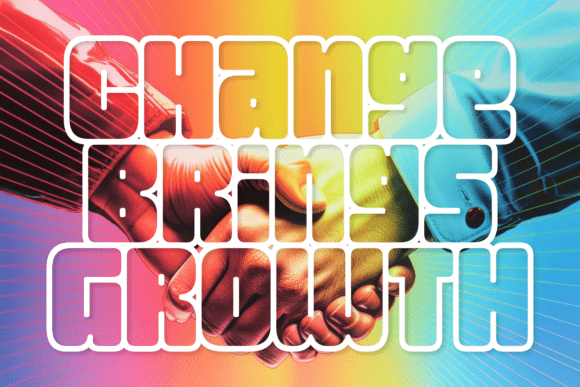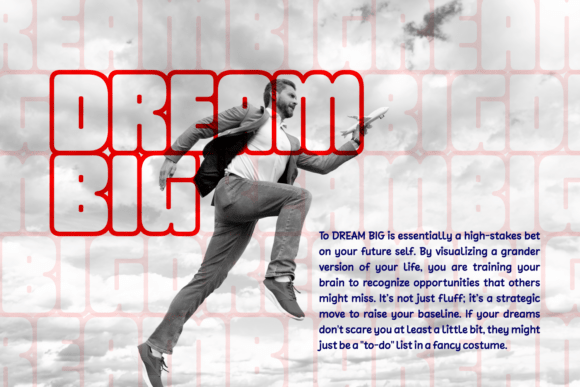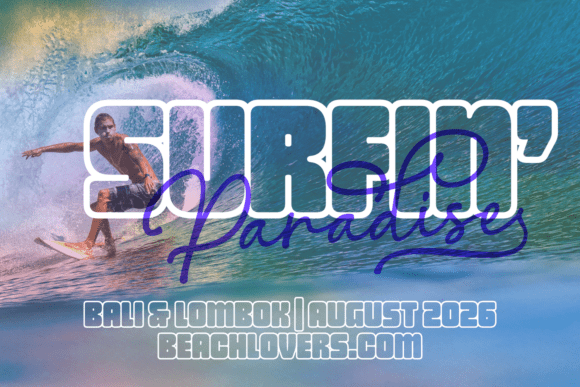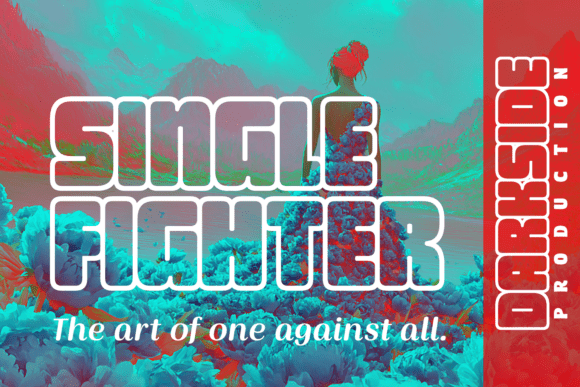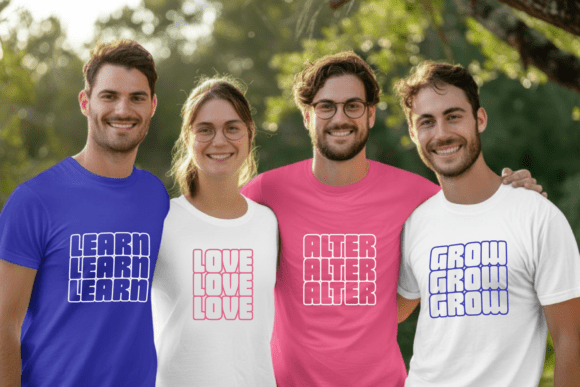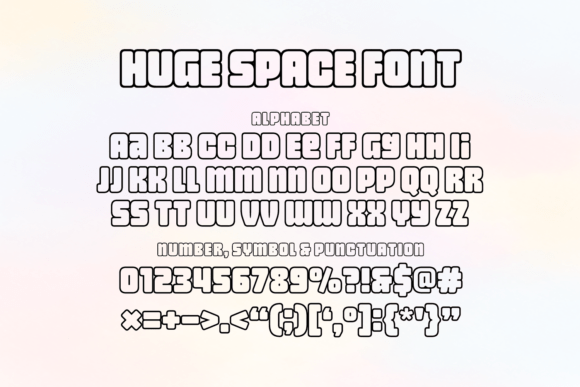
Unleashing the Power of Typography: Introducing Huge Space Font
You’ve spent hours pouring over your design, tweaking every detail, but something’s still missing. The moment you add a font, everything comes together, and your message truly resonates. But what if you could take your typography to the next level? Meet Huge Space Font, a game-changing display font designed to make a bold statement and leave a lasting impression.
This powerhouse of a font is specifically crafted to turn heads with its commanding presence and architectural structure. Its unique blend of heavy, bold outlines and spacious negative space creates a striking visual effect that’s perfect for making headlines pop. Whether you’re a streetwear brand, event organizer, or social media manager, Huge Space Font is the perfect tool to add a modern, high-energy edge to your typography.
Huge Space Font Key Features
- Font Size: The font is available in a range of sizes, including 24 points, 36 points, and 48 points, making it ideal for use in signage, billboards, and other large-scale applications.
- Resolution: Huge Space Font is designed to be legible at high resolutions, making it suitable for use in digital signage and other high-resolution displays.
- Unique Characteristic: One of the unique characteristics of Huge Space Font is its extremely large x-height, which makes it easy to read from a distance.
- Character Set: The font includes a comprehensive character set, including uppercase and lowercase letters, numbers, punctuation marks, and special characters.
Huge Space Font Review
Huge Space Font is a typeface that truly delivers on its promise of massive letterforms. ✨ I love the way it makes headlines and titles stand out, giving them a sense of grandeur and importance. The spacing between letters is generous, making it easy to read even at small font sizes.
One of the standout features of Huge Space Font is its versatility. ✨ It works well in a variety of contexts, from modern websites to retro-themed designs. The font is also highly customizable, with a range of styles and weights to choose from.
- ⚠️ Limited use in body text: While Huge Space Font is great for headlines and titles, it may not be the best choice for body text. The large letterforms can be overwhelming and difficult to read at smaller font sizes.
- ⚠️ May not be suitable for complex layouts: Huge Space Font is a bold and attention-grabbing font, which can make it difficult to use in complex layouts with many competing elements.
Overall, I think Huge Space Font is a great addition to any designer’s toolkit. While it has some limitations, its unique style and versatility make it a valuable resource for creating eye-catching and memorable designs.
The Huge Space Font is ideal for creating eye-catching headlines, titles, and captions. Use it to add a touch of drama and emphasis to your designs. Some common use cases include:
- Movie posters and trailers
- Graphic novels and comic books
- Infographics and presentations